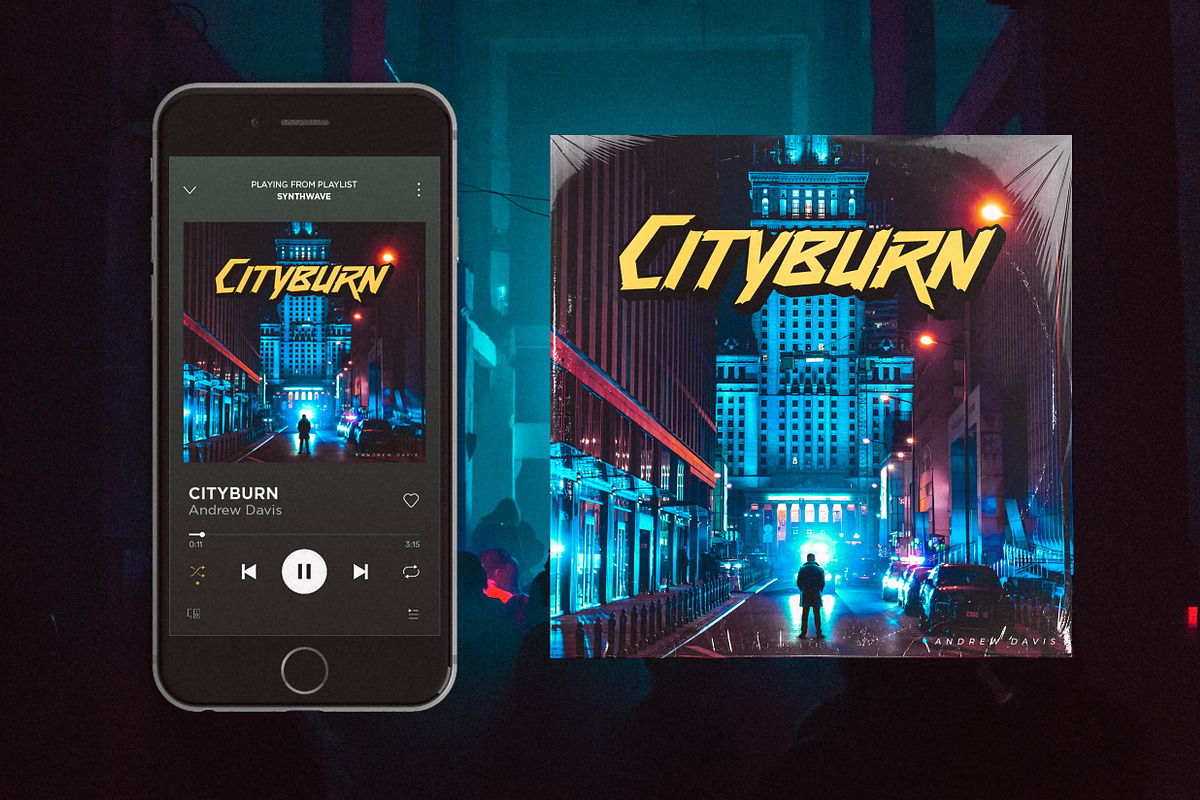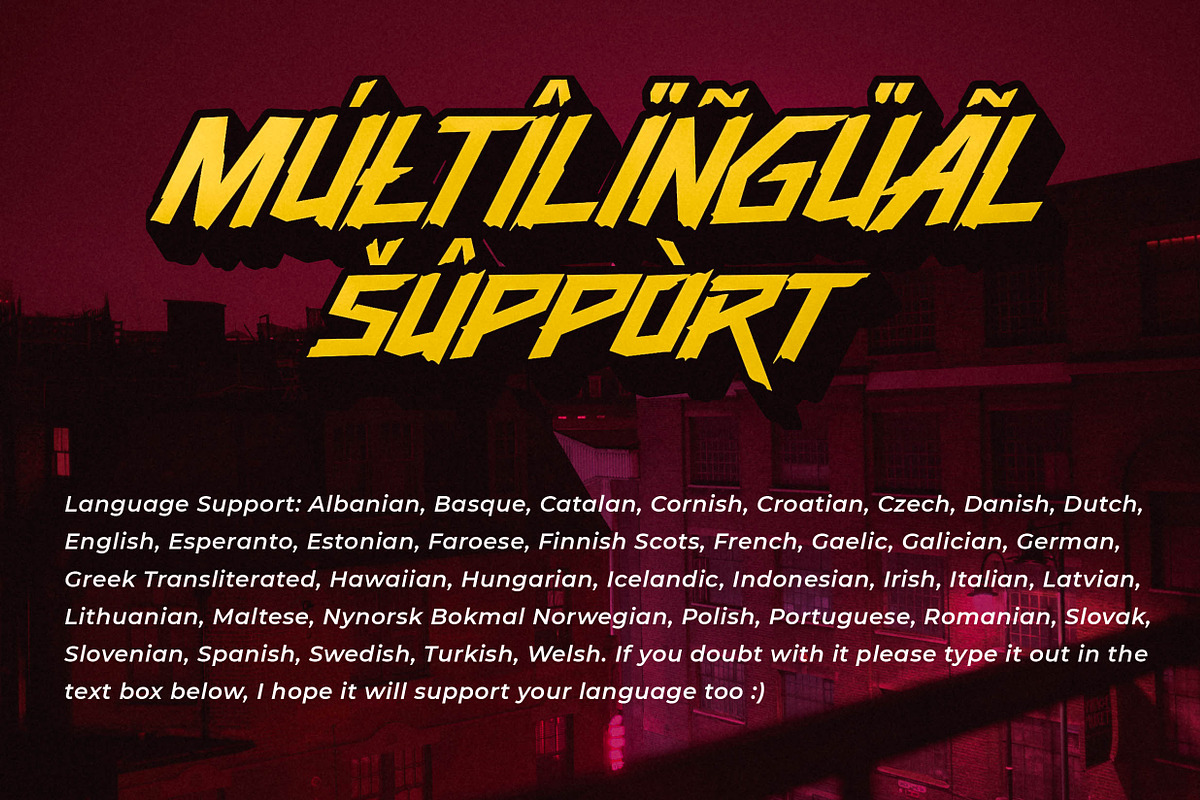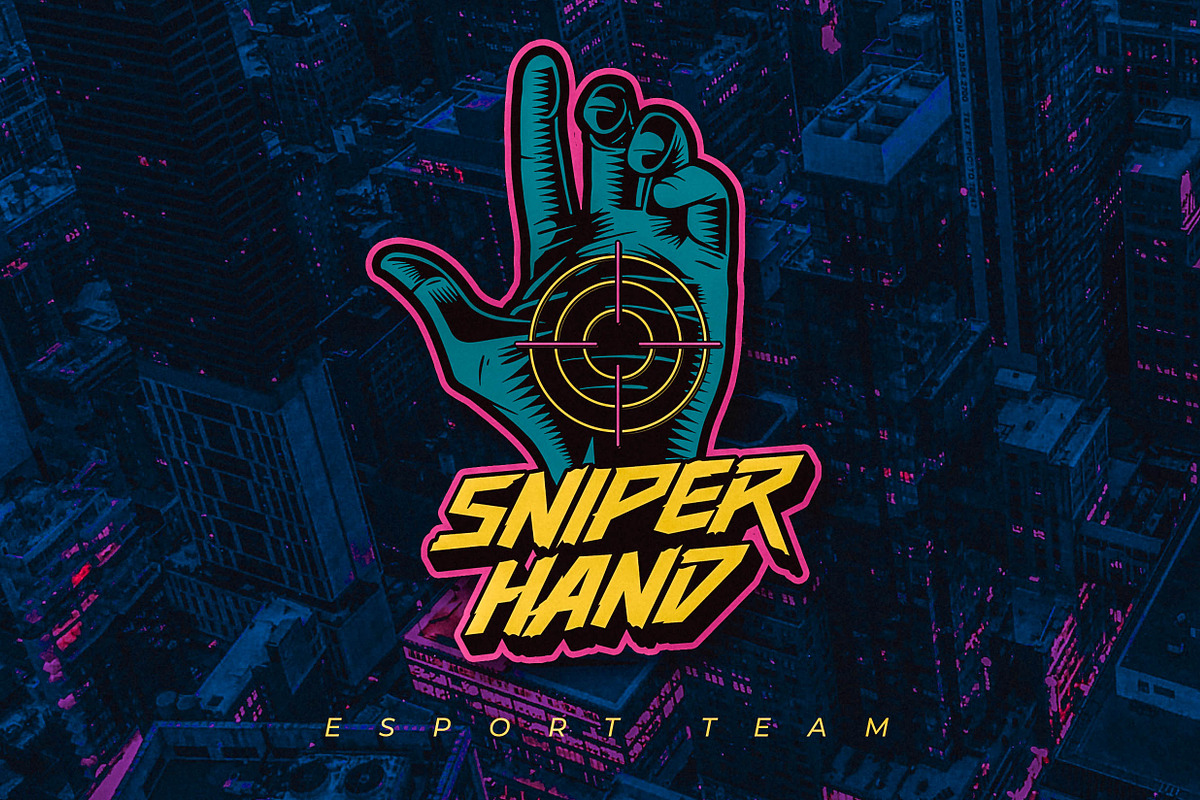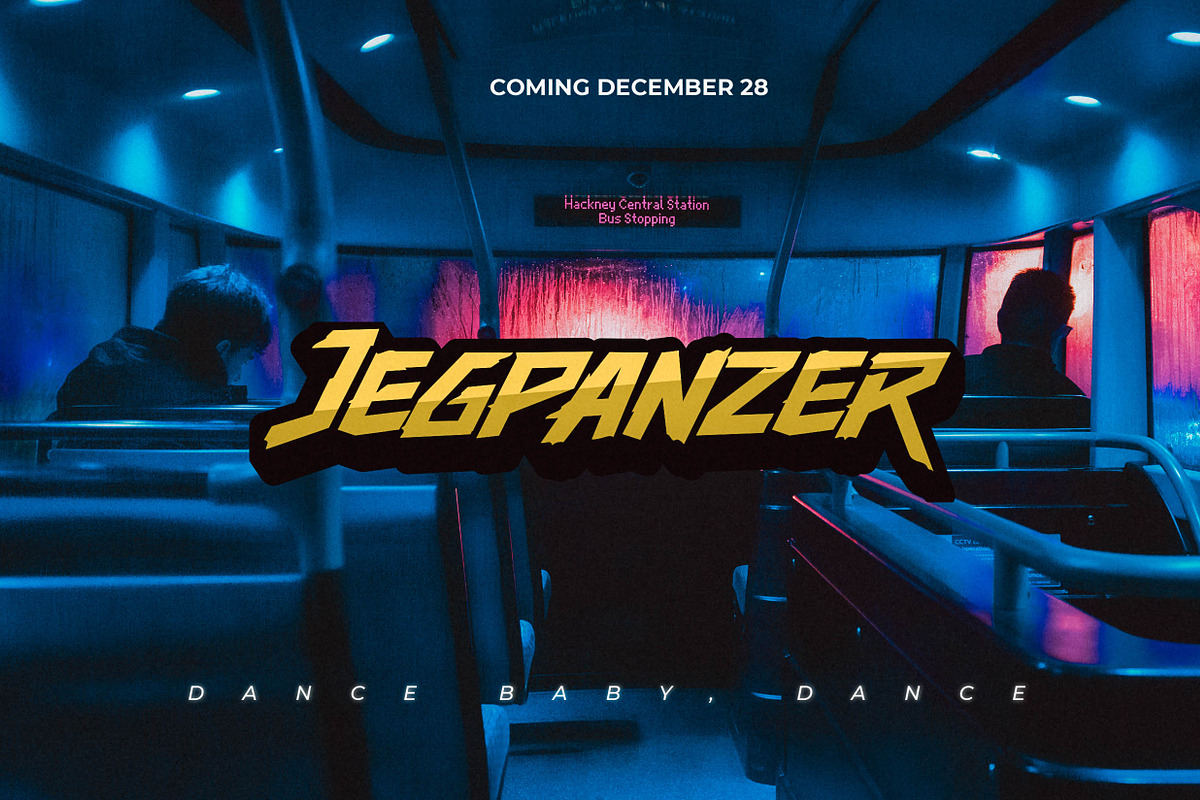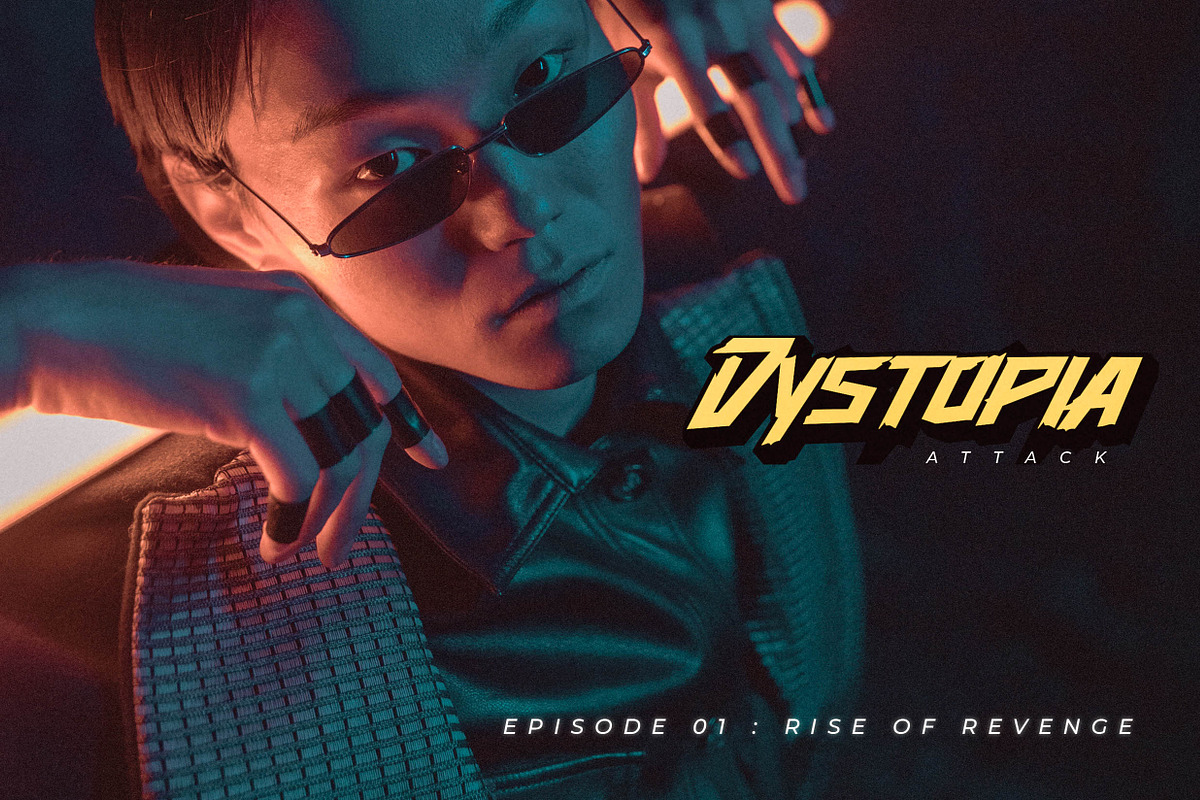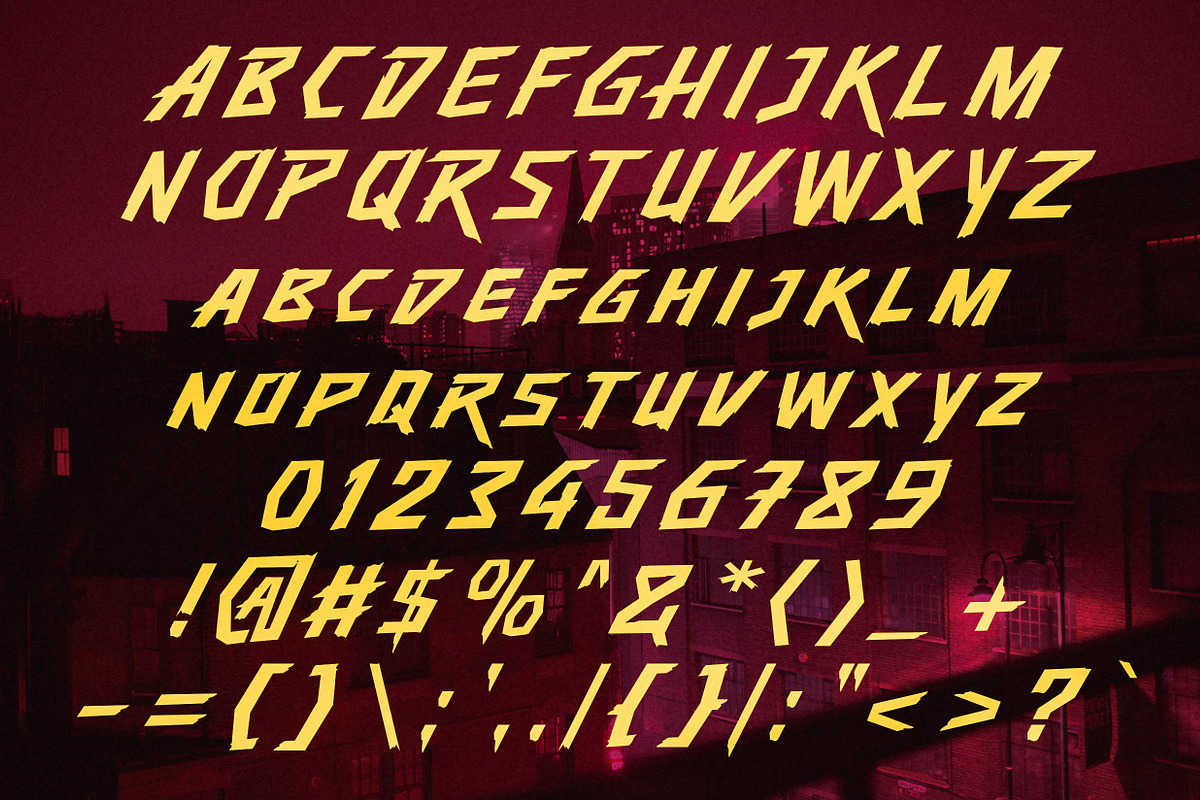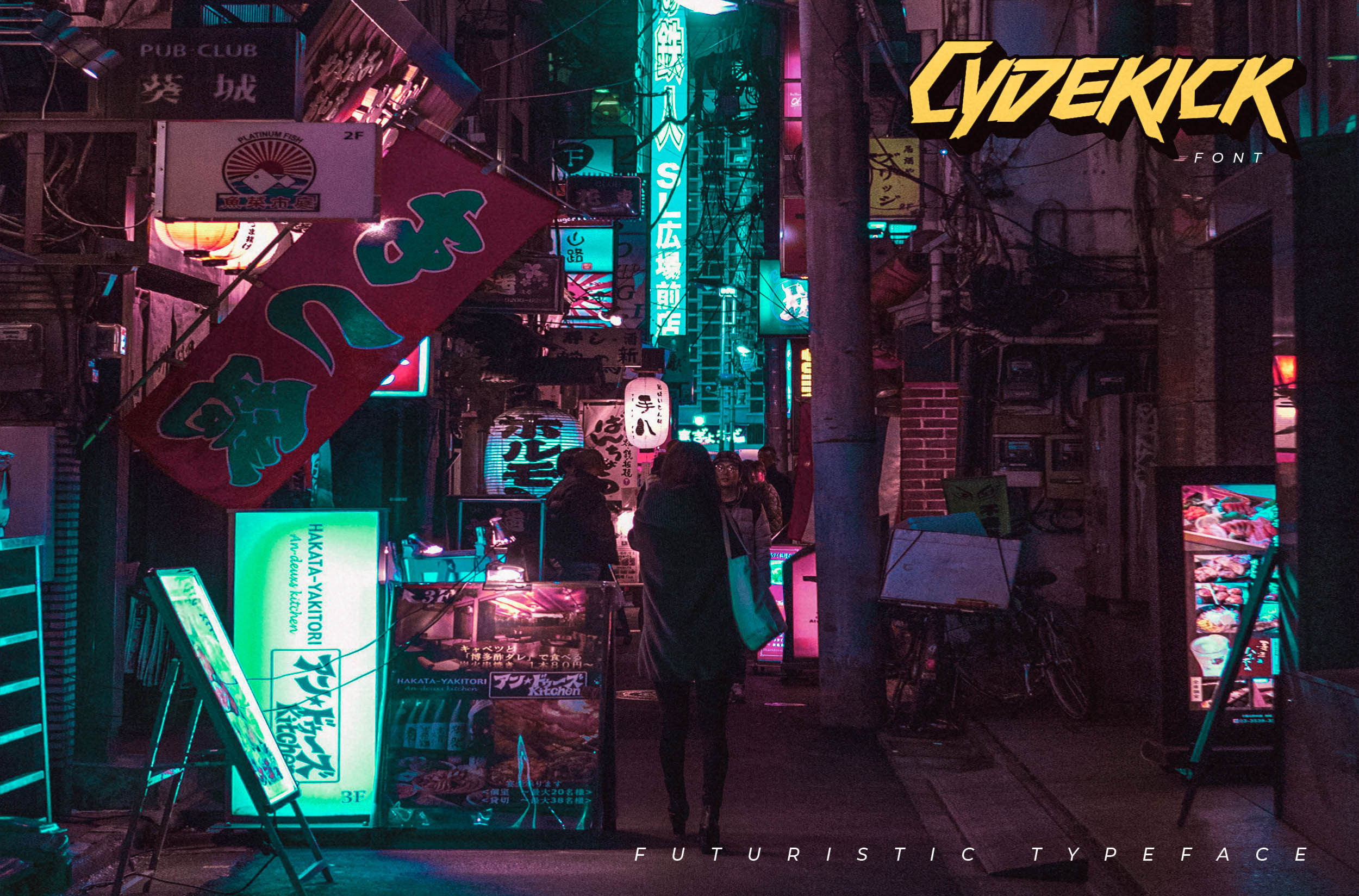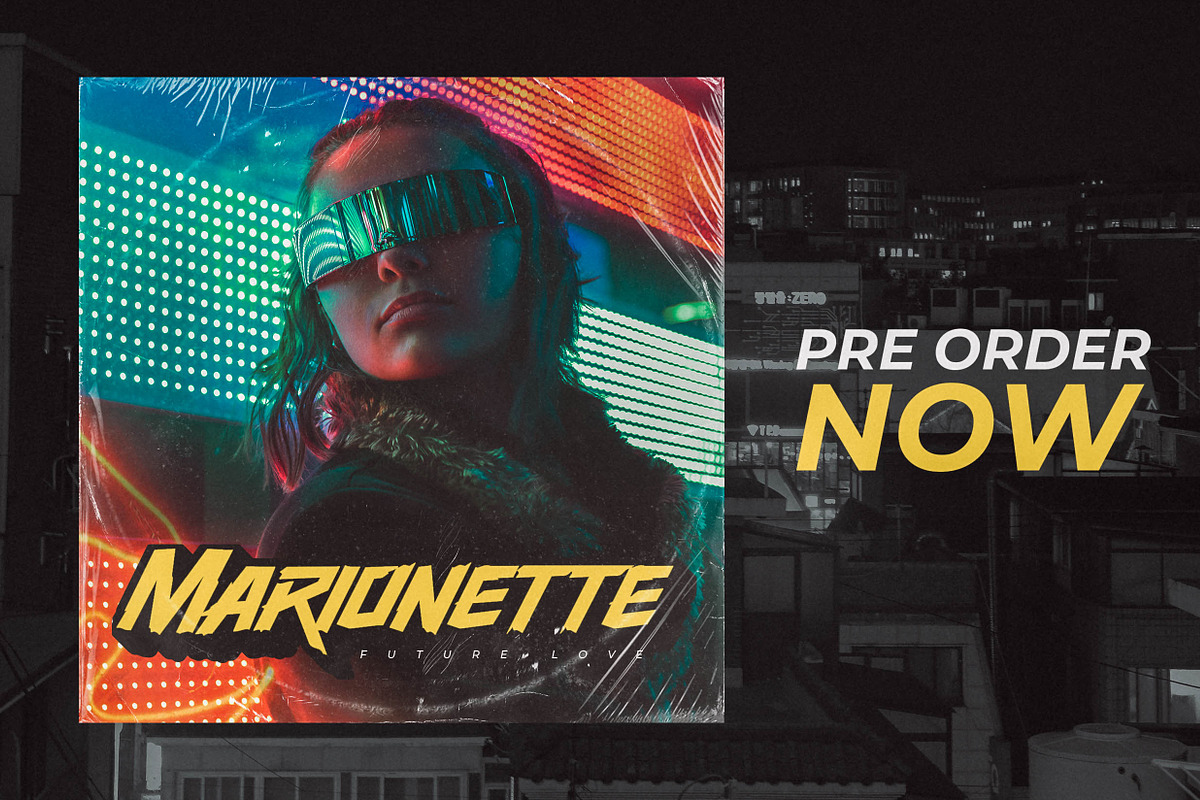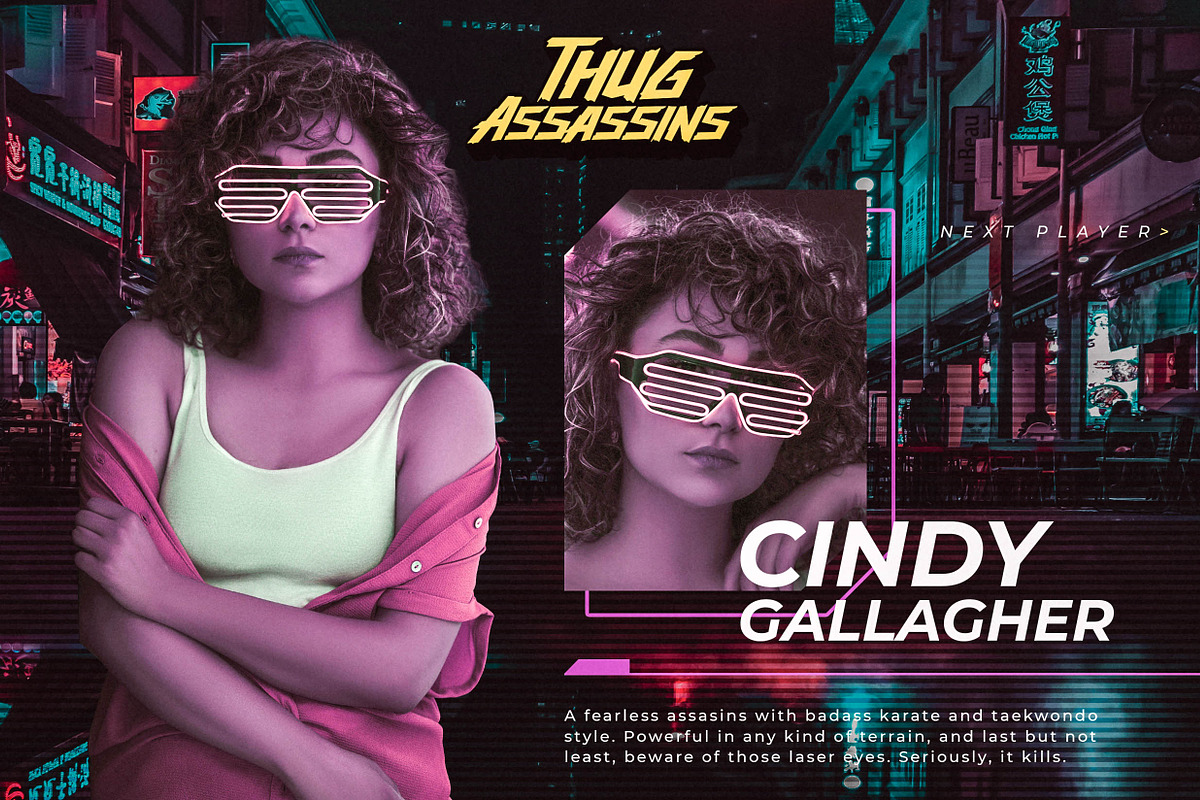
Cydekick - Futuristic Fonts
The futuristic concept has invaded every sector of the industry like crazy (I mean, real crazy) nowadays. Fashion, Technology, Digital Business, Visual Design, Gaming, Music, you name it.
We are, prepared. And of course, you can too. Take this font to your weapon's arsenal to join the era of futurism. Please welcome, Cydekick.
A wild, bold, fast, rebellious, font with a futuristic touch to give a 100 years boost to your design right away. Perfectly fit for esports logo, apps, UI, UX, game design, digital music branding, poster, live streaming design, anytime you need a futuristic touch, Cydekick will serve you right.
Language Support: Albanian, Basque, Catalan, Cornish, Croatian, Czech, Danish, Dutch, English, Esperanto, Estonian, Faroese, Finnish Scots, French, Gaelic, Galician, German, Greek Transliterated, Hawaiian, Hungarian, Icelandic, Indonesian, Irish, Italian, Latvian, Lithuanian, Maltese, Nynorsk Bokmal Norwegian, Polish, Portuguese, Romanian, Slovak, Slovenian, Spanish, Swedish, Turkish, Welsh. If you doubt with it please type it out in the text box below, I hope it will support your language too :)